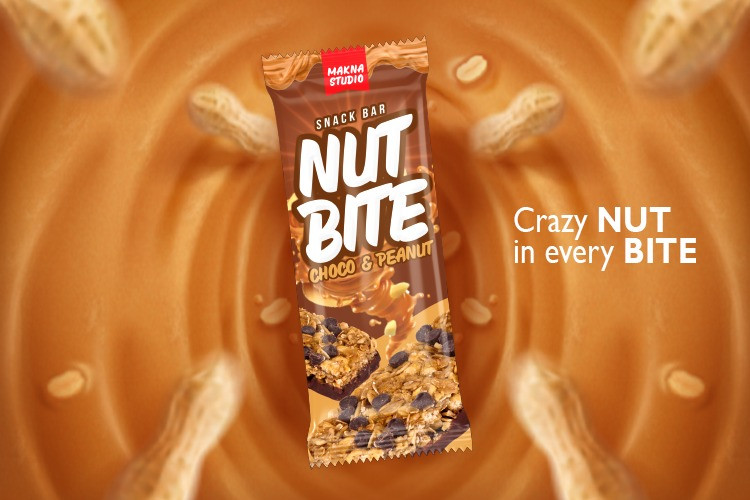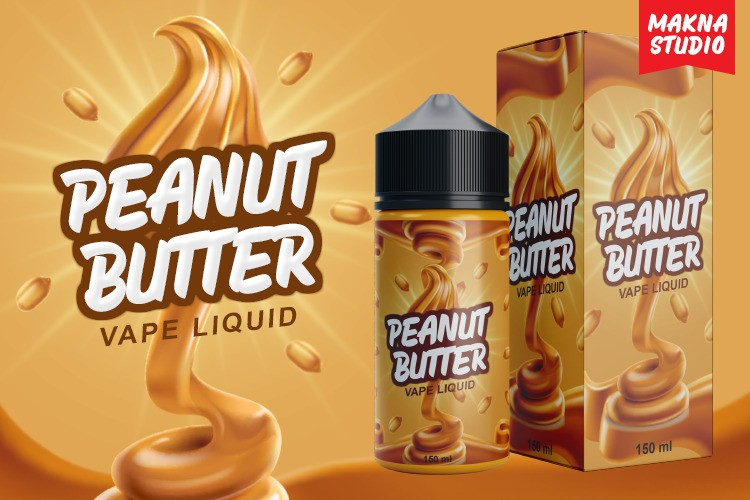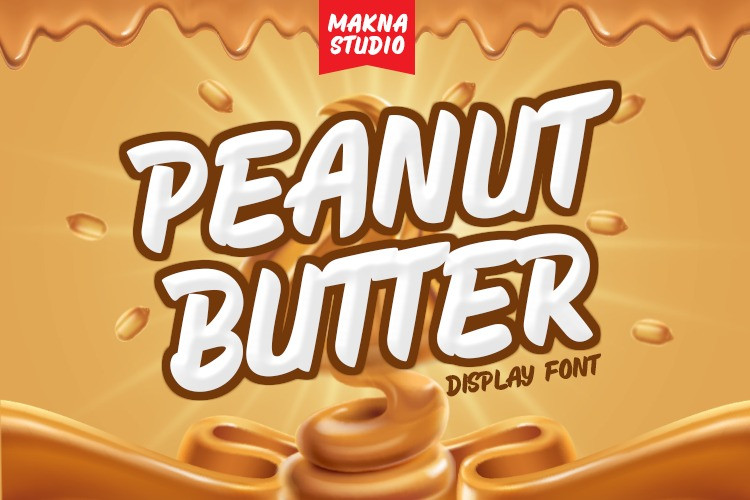
Peanut Butter Font
Peanut Butter display font is a brush font with bold and good shape. Really match to make an iconic word mark Logo , Product Logo, Poster movie, games, and many more.
Opentype features (Stylistic and Contextual alternates, Standart and Discretionary ligatures)